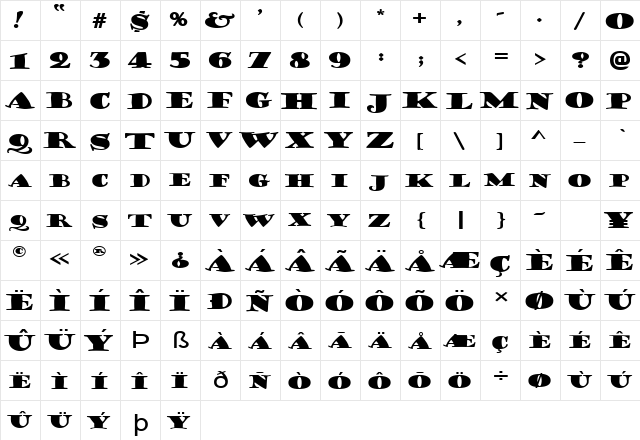
CoffeeSackExtended Normal
Design Context for CoffeeSackExtended Typeface
CoffeeSackExtended is a composed and adaptable typeface that performs quietly and consistently across a wide range of design contexts.
Pro Tip: Use CoffeeSackExtended in both headline and body roles to test its range before committing to a single application.